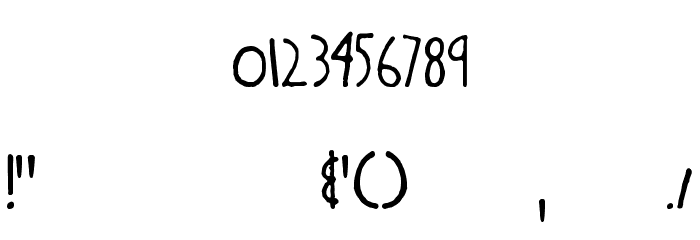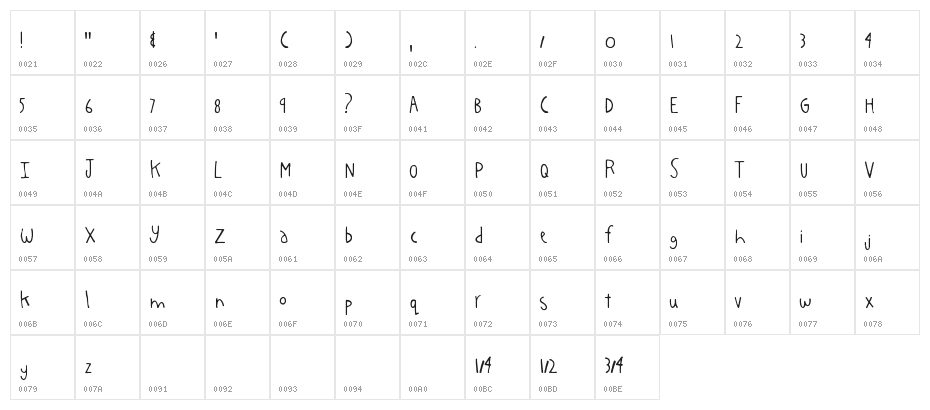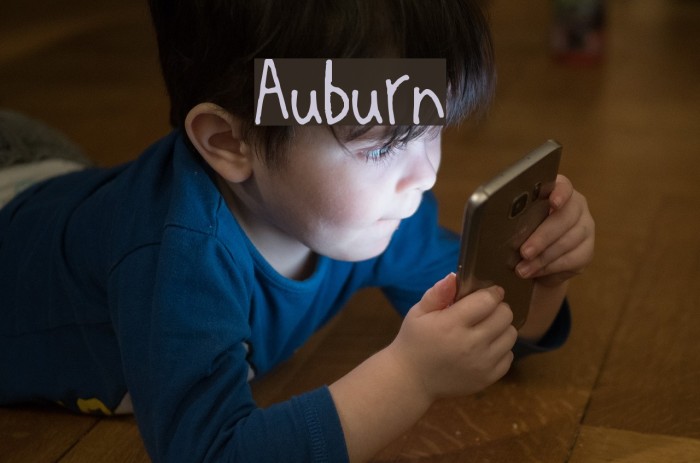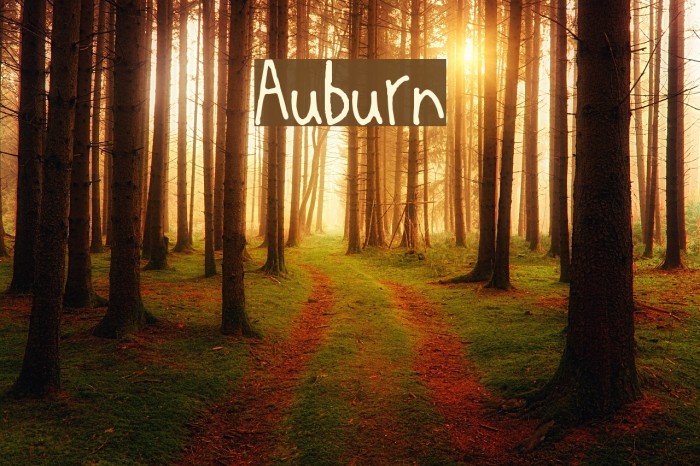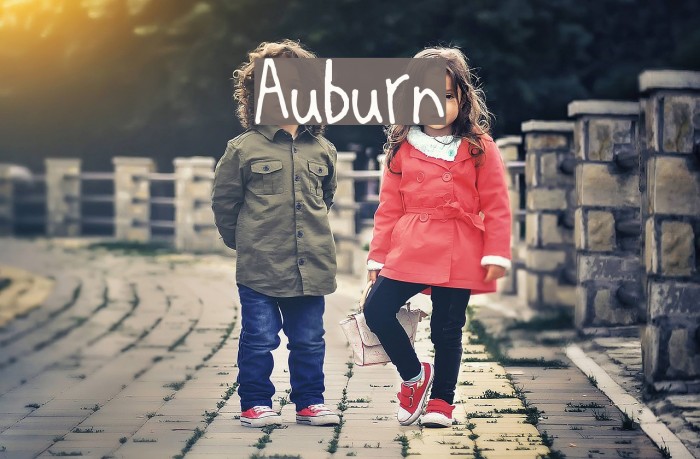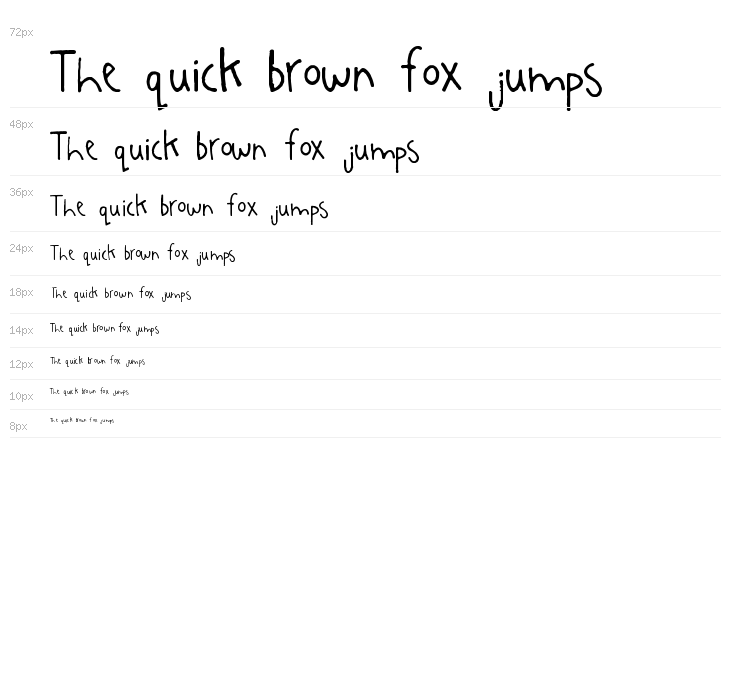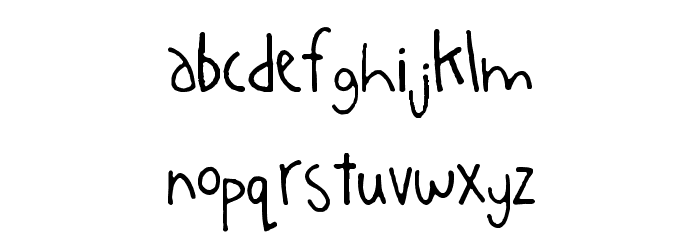
Auburn Font
Auburn Description
This font features a playful and informal handwritten style, characterized by its uneven strokes and casual appearance. The letters have a slightly irregular baseline, adding to the organic and natural feel. The uppercase letters are bold and prominent, while the lowercase letters maintain a consistent flow with rounded edges. The numbers and special characters follow the same playful aesthetic, making the font suitable for projects that require a personal touch. The overall look is friendly and approachable, ideal for creative and informal applications.